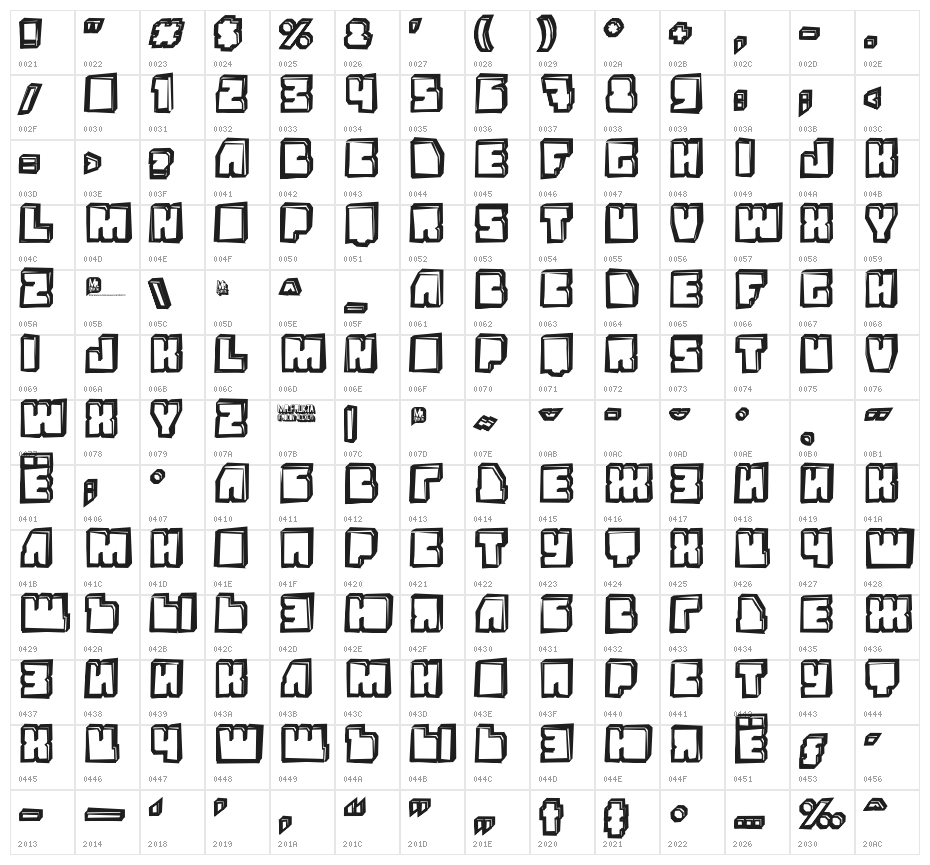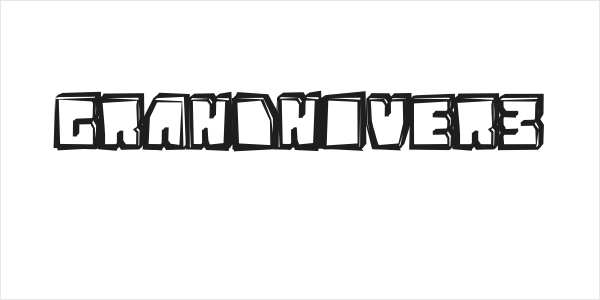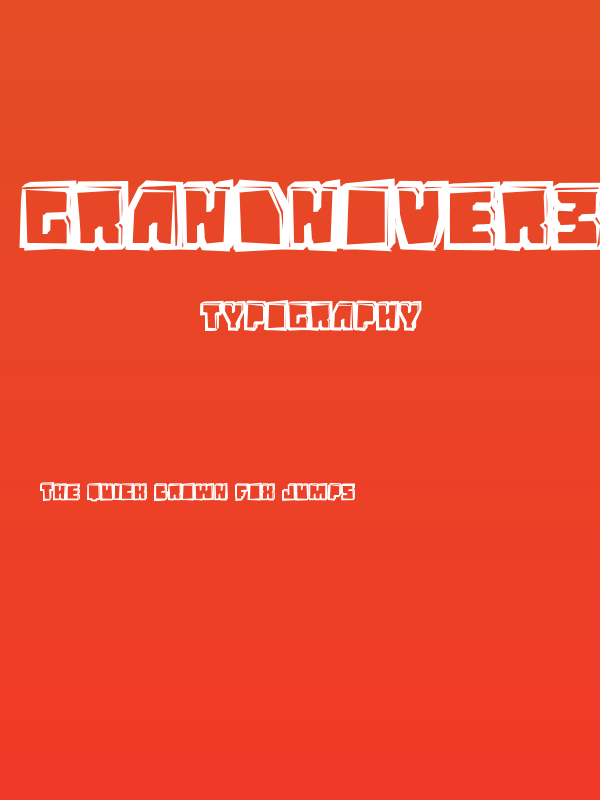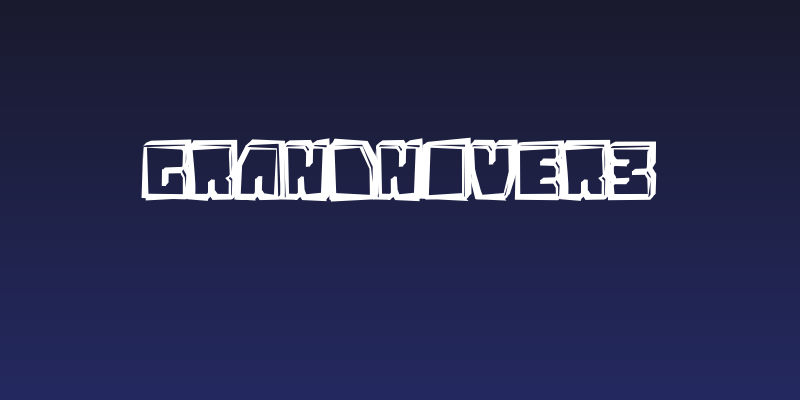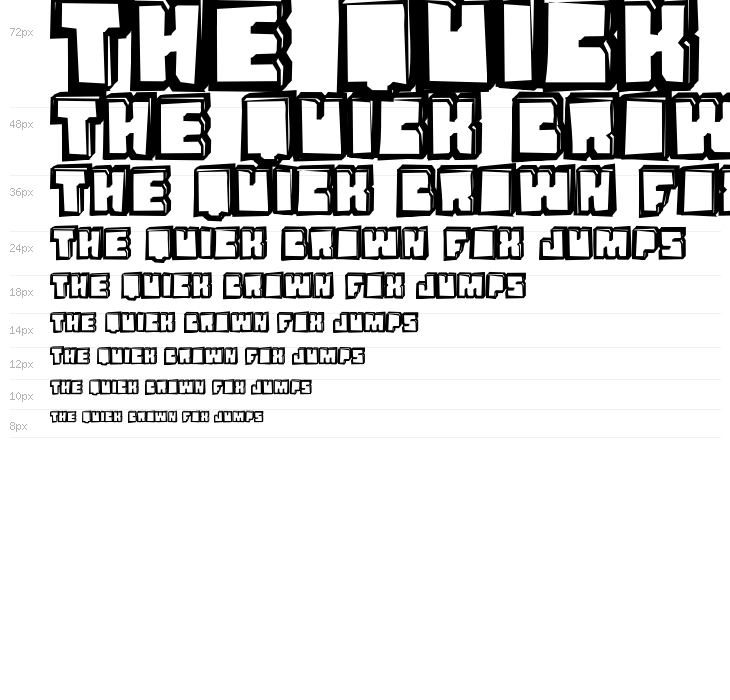
GrandNover3 Font
GrandNover3 Description
This font features a bold, three-dimensional style with a strong, blocky appearance. The letters are enclosed in thick outlines, giving them a graffiti-like, urban feel. The characters are uniformly wide, with a consistent height and width across both uppercase and lowercase letters. The numbers and special characters maintain the same bold, outlined style, ensuring a cohesive look throughout. The font's design is highly decorative, making it ideal for eye-catching displays and headlines. Its unique, edgy style is perfect for projects that require a modern, street-art aesthetic.
| Overall Style | Modern, Urban, Edgy |
| Proposed Projects | Ideal for street art designs, urban-themed posters, edgy branding, and eye-catching headlines. |